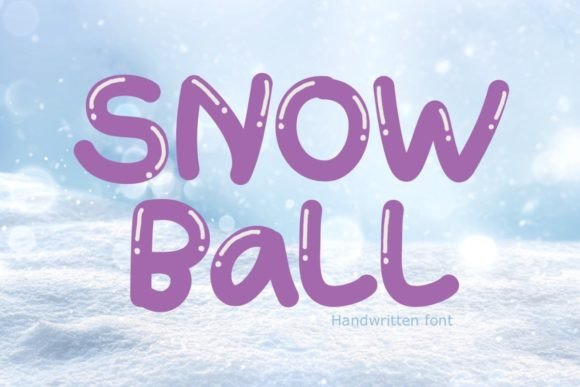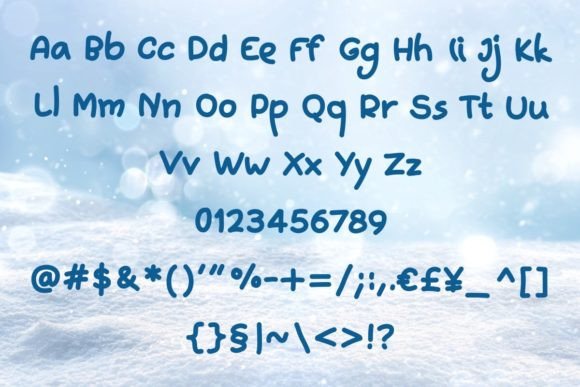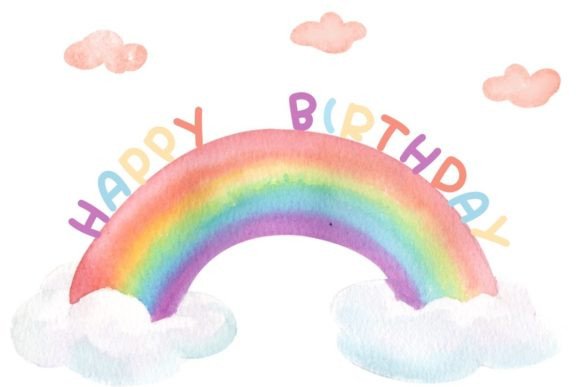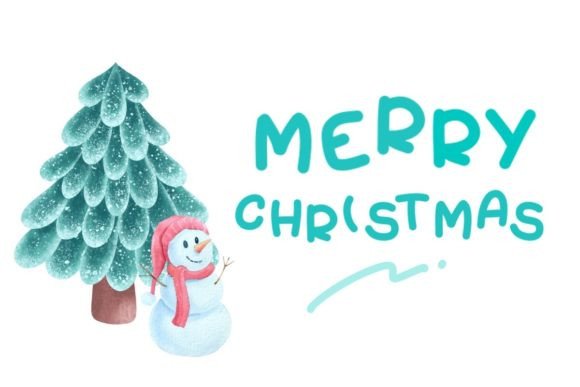
About Snow Ball Font
Snow Ball is a cute and friendly handwritten font. Cheerful and whimsical, this font is perfect for all your favorite projects that require a lovely touch.